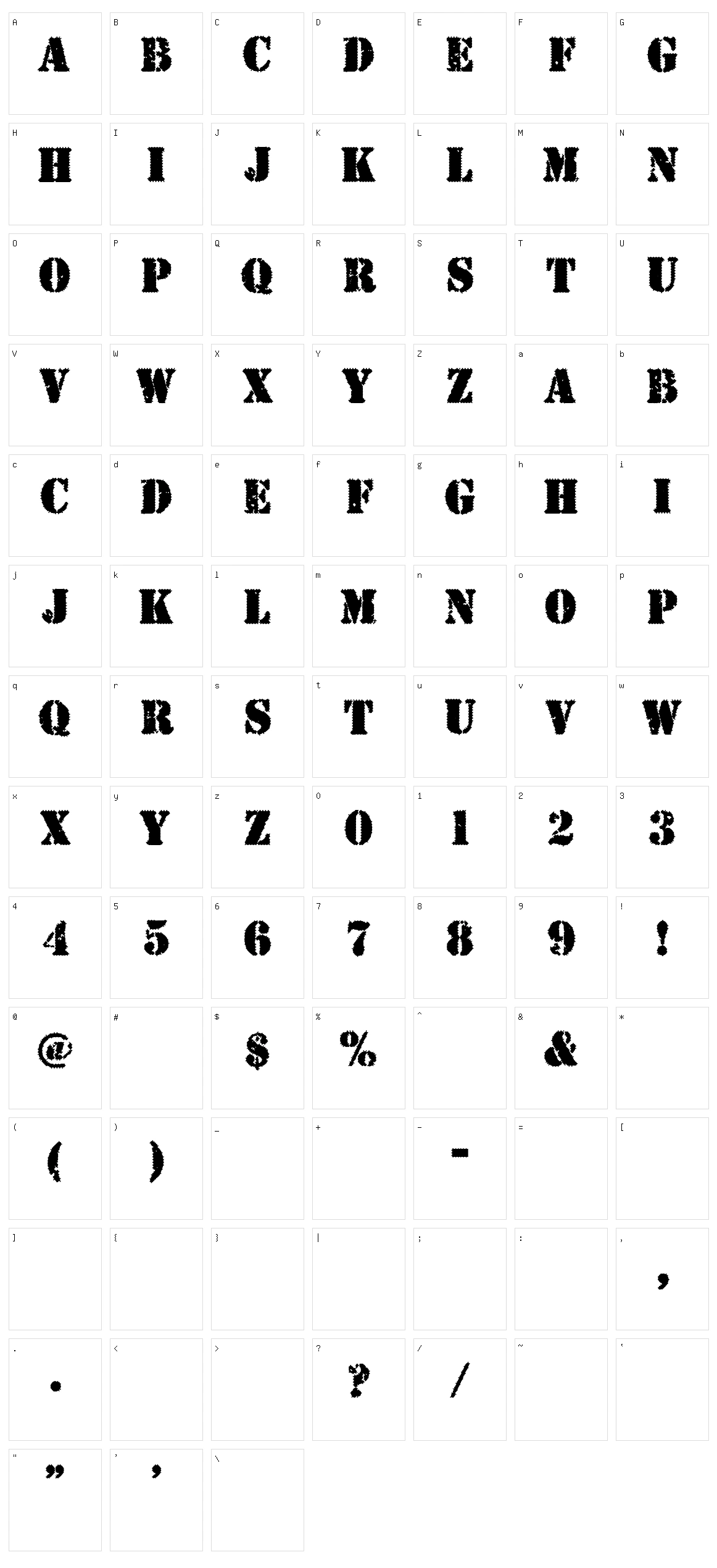
The free font B-Team is carefully designed by Woodcutter, showcasing a thoughtful balance of creativity and usability and falls under the Stencil font style. When you download the ZIP file, it contains only 156.23 KB of font files, making it lightweight and quick to download. Please review the license details below to understand permitted usage and distribution rights. If license information is not available, we recommend using this font for personal projects only or contacting the author directly for commercial usage permissions.